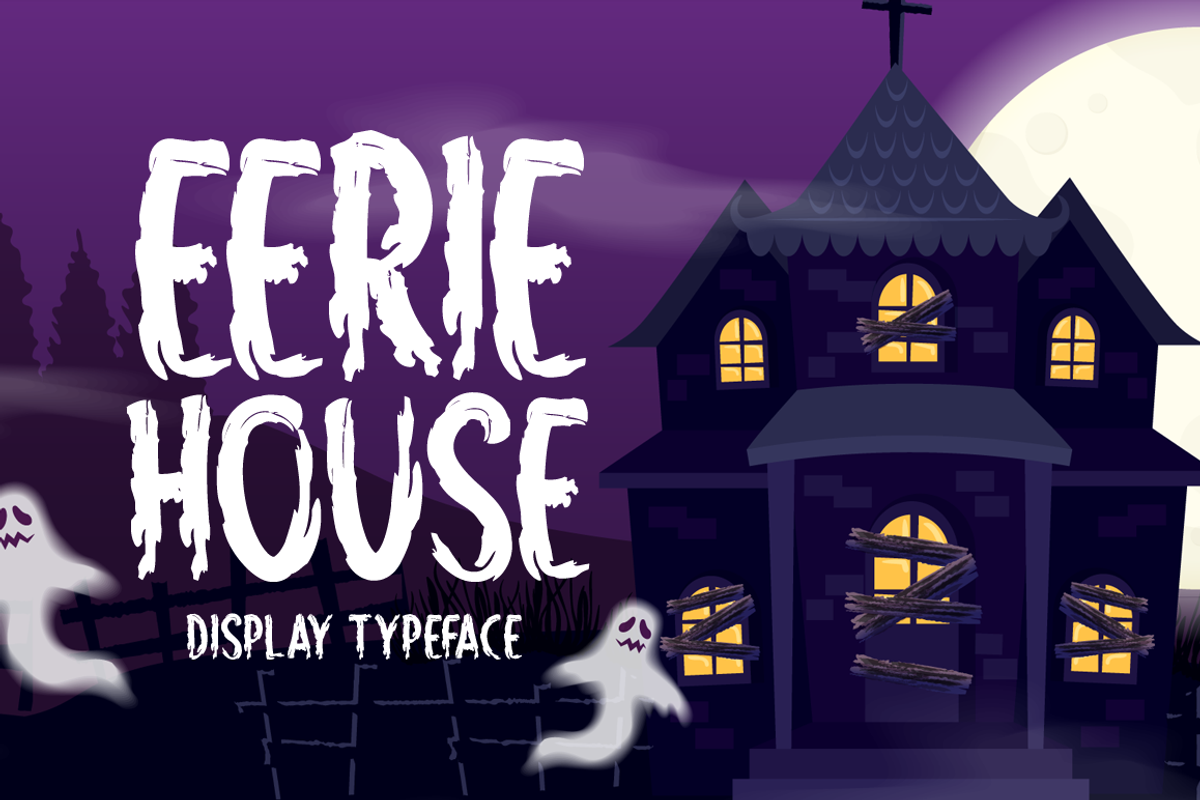
Eerie House Typeface Free Download
Eerie House Typeface Free Download is a spooky and playful typeface designed to capture the essence of Halloween and horror-themed designs. With its jagged, eerie edges and spooky feel, this font is perfect for creating Halloween invitations, horror posters, spooky branding, and anything that requires a dark, chilling touch.
The font's bold and mysterious design makes it ideal for eye-catching titles, logos, or creative projects that need to stand out with a frightful flair. Whether you’re designing for a haunted house, a horror film, or a Halloween event, Eerie House brings a unique and spooky vibe to your typography.